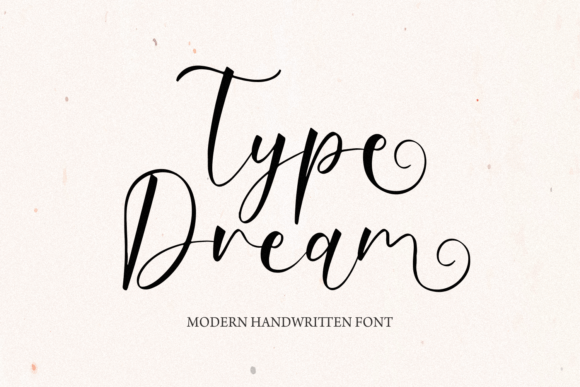
Introducing Type Dream Font: Elevate Your Designs with a Touch of Classic Elegance
In the world of design, fonts play a crucial role in conveying the tone and aesthetic of a project. If you’re looking for a font that exudes classic charm, bohemian flair, and feminine sophistication, look no further than Type Dream Font. This handwritten script font is versatile, elegant, and perfect for a wide range of design applications. In this article, we’ll explore the features and benefits of Type Dream Font, and how it can elevate your designs to new heights.
What is Type Dream Font?
Type Dream Font is a beautifully crafted handwritten script font that boasts a classic, boho-chic aesthetic. Its elegant strokes, flowing curves, and refined lines make it an ideal choice for designers seeking to add a touch of sophistication to their projects. Whether you’re working on a wedding invitation, a fashion brand’s logo, or a social media post, Type Dream Font is sure to impress.
Key Features of Type Dream Font
- Handwritten Script Font: Type Dream Font is a carefully crafted handwritten script font that mimics the elegance of traditional calligraphy.
- Classic, Boho-Chic Aesthetic: The font’s unique blend of classic and bohemian elements makes it perfect for designers seeking to create distinctive, eye-catching designs.
- Feminine Sophistication: Type Dream Font’s flowing curves and refined lines add a touch of feminine elegance to any design.
- Versatile: This font is suitable for a wide range of design applications, from weddings and fashion to branding and advertising.
Best Use Cases for Type Dream Font
Type Dream Font is an incredibly versatile font that can be used in various design projects. Here are some of the best use cases for this stunning font:
Top Projects for Type Dream Font
- Logos, Branding, & Signatures: Type Dream Font is perfect for creating elegant logos, branding materials, and signatures that exude sophistication and refinement.
- Flyers, Album Covers, Magazines, & Advertisements: The font’s classic, boho-chic aesthetic makes it an excellent choice for designing eye-catching flyers, album covers, magazines, and advertisements.
- Website Design, Design Blogs, & Fashion: Type Dream Font can add a touch of elegance to website designs, design blogs, and fashion-related projects, such as clothing brands, fashion magazines, or style influencers.
- Quote Graphics for Social Media: This font is ideal for creating inspiring quote graphics for social media platforms, adding a touch of sophistication and refinement to your online presence.
Why Choose Type Dream Font?
With so many fonts available, why should you choose Type Dream Font for your design projects? Here are some compelling reasons:
Why Type Dream Font Stands Out
- Unique Aesthetic: Type Dream Font offers a distinctive, boho-chic aesthetic that sets it apart from other fonts.
- Elegance and Sophistication: The font’s classic, refined lines and flowing curves add a touch of elegance and sophistication to any design.
- Versatility: Type Dream Font is suitable for a wide range of design applications, making it an excellent addition to any designer’s font library.
- Easy to Read: Despite its elegant, cursive nature, Type Dream Font is easy to read, making it perfect for body text and headings.
Tips for Using Type Dream Font Effectively
To get the most out of Type Dream Font, here are some tips for using it effectively in your design projects:
Best Practices for Using Type Dream Font
- Pair with Neutral Backgrounds: Type Dream Font looks stunning against neutral backgrounds, allowing its elegant lines and curves to take center stage.
- Experiment with Colors: Try pairing Type Dream Font with bold, bright colors to create striking contrasts and add visual interest to your designs.
- Use for Headings and Titles: Type Dream Font is perfect for headings and titles, adding a touch of elegance and sophistication to your designs.
- Mix with Other Fonts: Don’t be afraid to mix Type Dream Font with other fonts to create visually appealing typography and add depth to your designs.
In conclusion, Type Dream Font is a stunning handwritten script font that offers a unique blend of classic elegance, bohemian flair, and feminine sophistication. Its versatility, elegance, and ease of use make it an excellent choice for designers seeking to elevate their designs. Whether you’re working on a wedding invitation, a fashion brand’s logo, or a social media post, Type Dream Font is sure to impress. Add it to your font library today and discover a world of creative possibilities!